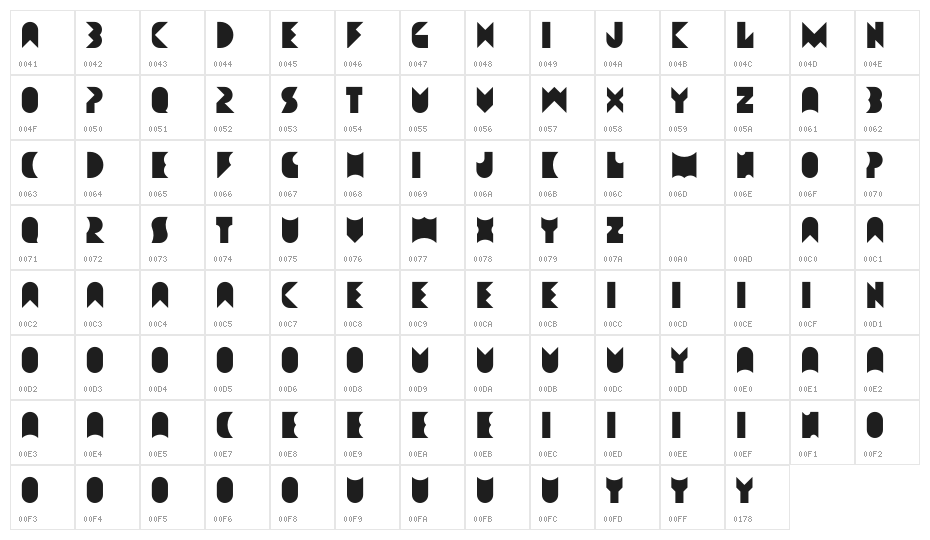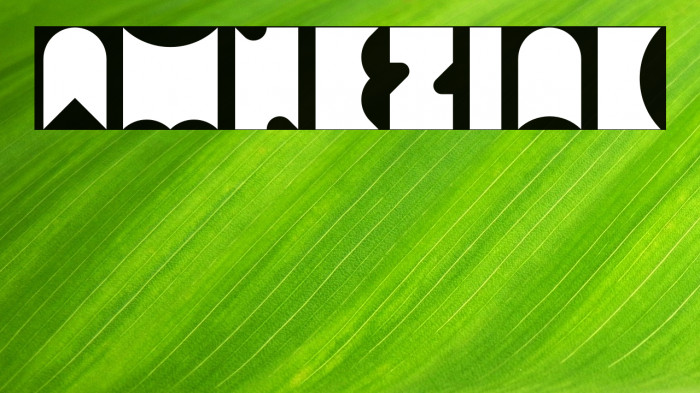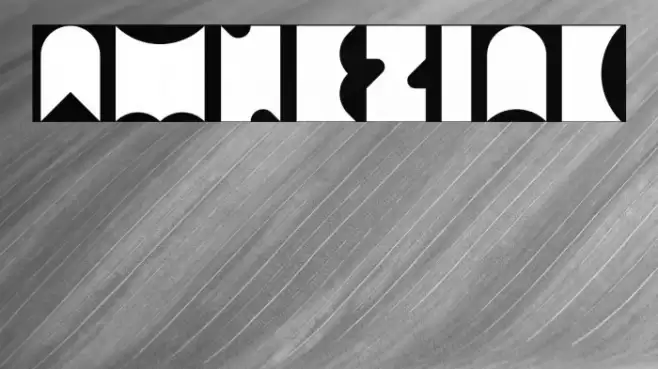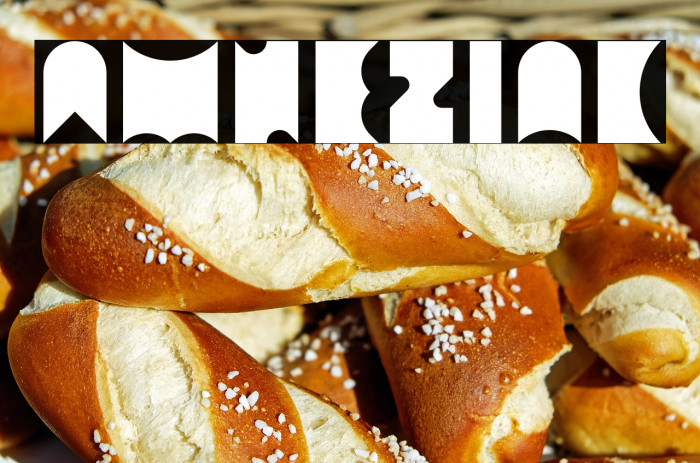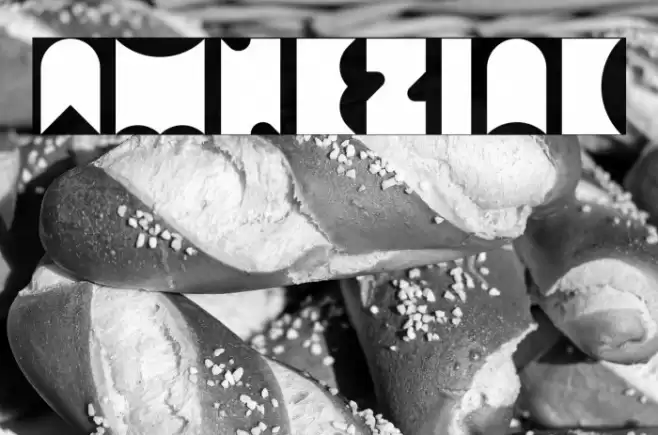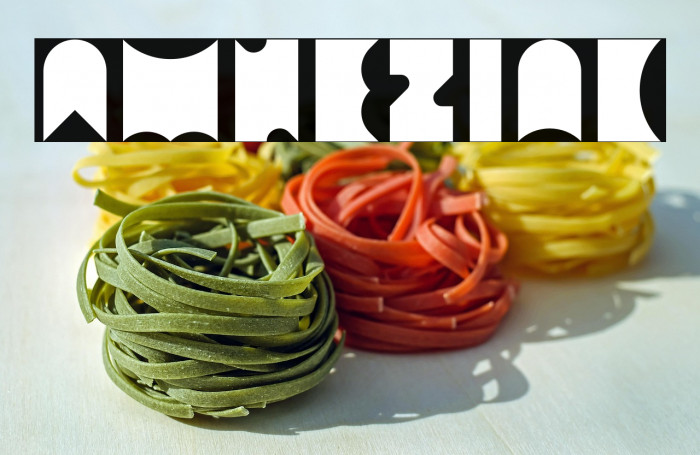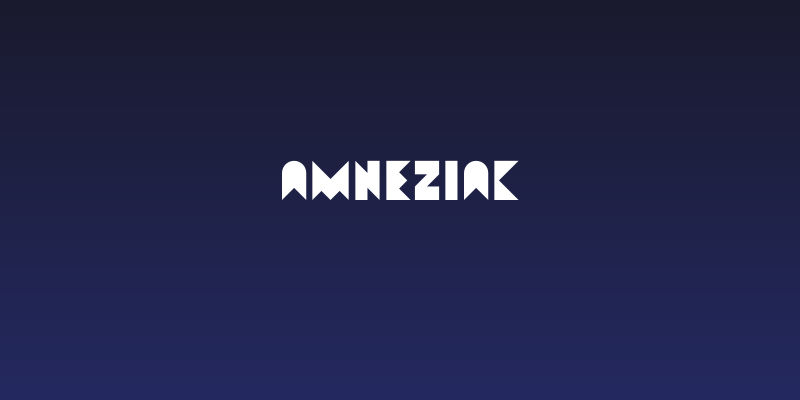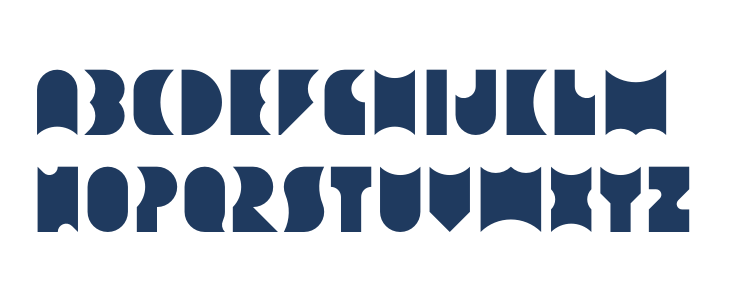
Amneziak Font
Amneziak Description
This font features a bold and geometric design, characterized by sharp angles and a strong visual impact. The uppercase letters exhibit a unique combination of triangular and rectangular shapes, creating a dynamic and modern appearance. The lowercase letters maintain the geometric theme, offering a cohesive look throughout the typeface. The numbers and special characters follow the same design principles, ensuring consistency. This font is ideal for projects that require a striking and contemporary aesthetic.